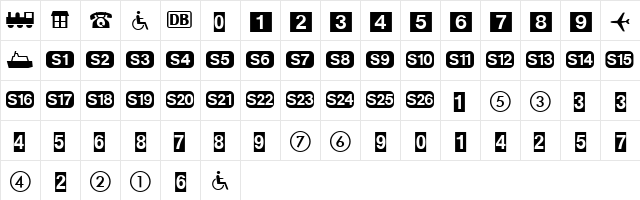
DeutscheBahnAG Regular
Design Context for DeutscheBahnAG Typeface
DeutscheBahnAG takes a measured approach to typography — its balanced proportions and neutral character make it a reliable workhorse for both digital and print work.